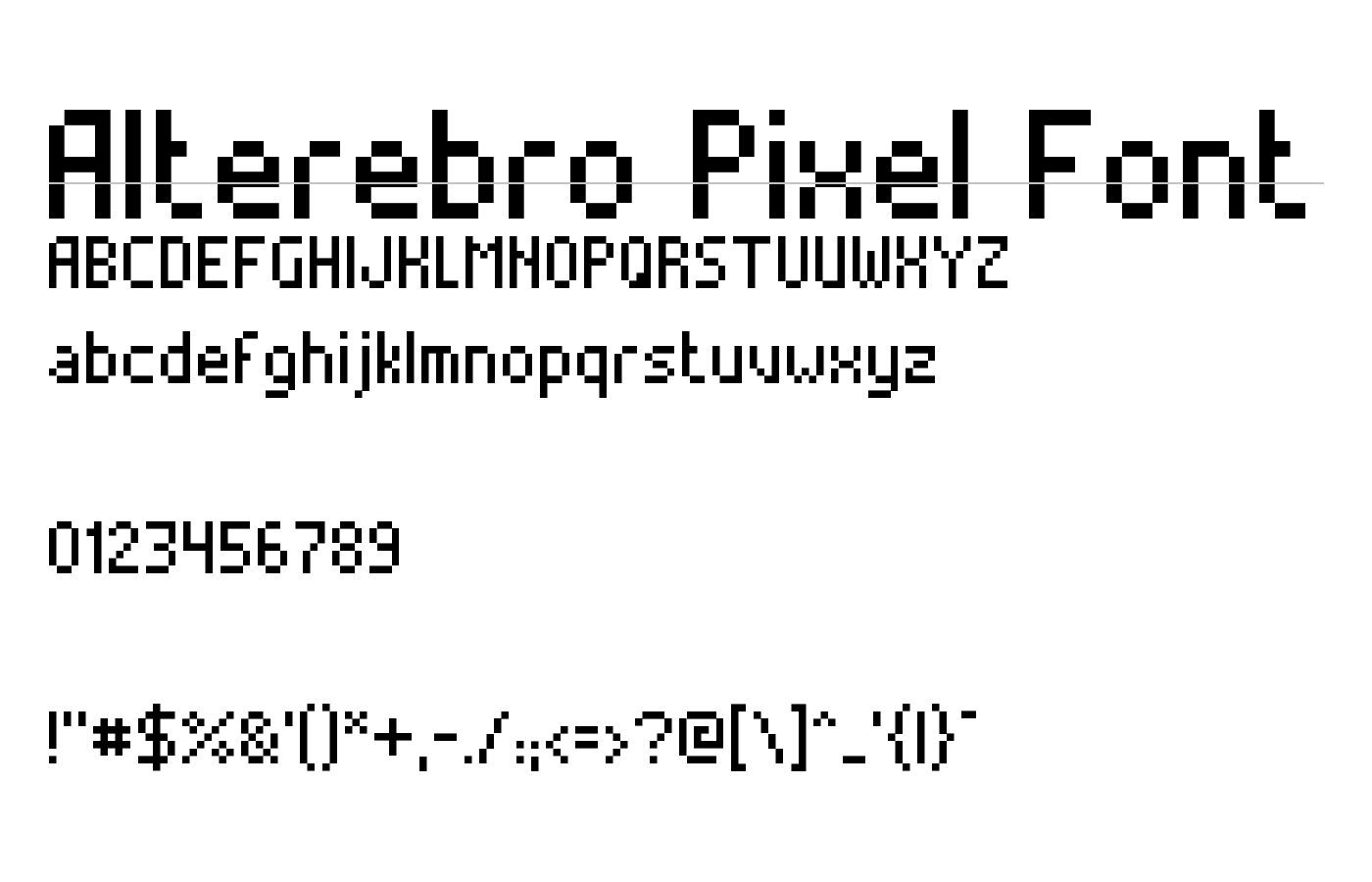
Alterebro Pixel Font is a bold, monospaced sans serif typeface characterized by its blocky, pixelated structure, evoking a retro digital or 8-bit video game aesthetic. Its uniform stroke weight and sharp, squared edges give it a clean, mechanical feel that works well for tech, gaming, or any design seeking a nostalgic yet modern digital vibe. This font shines in display uses such as logos, headlines, and digital interfaces where clarity and a vintage pixel style are desired.
Alterebro Pixel Font
About Alterebro Pixel Font
| Font family | Alterebro Pixel Font |
| Designer | alterebro |